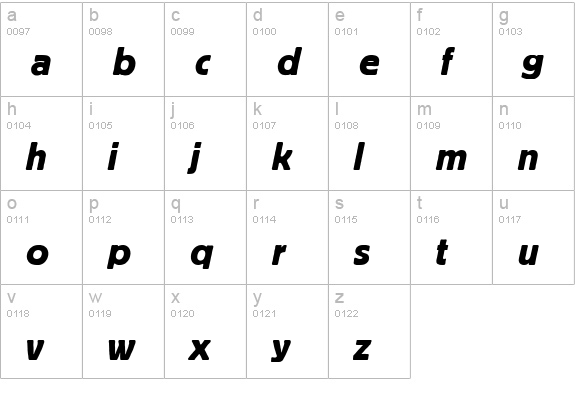
Block Berthold Italic Font Details
Block Berthold Italic is a distinctive, italic variant in the Block typeface family \xE2\x80\x94 well suited to design and typography projects.
Block Berthold Italic font is a modern and stylish typeface that exudes elegance and sophistication. Its sleek and streamlined design makes it perfect for a wide range of projects, from branding to editorial design. The italicized style adds a touch of flair and personality to any text, making it stand out and capture attention. What sets Block Berthold Italic font apart is its versatility and readability, making it suitable for both display purposes and body text. Whether you're designing a logo, creating a poster, or crafting a brochure, this font will elevate your work to the next level with its clean lines and distinctive curves. And the best part? Block Berthold Italic font is available for free download at FontsMarket.com. So you can access this premium font without having to worry about any costs. Don't miss out on the opportunity to enhance your designs with this elegant and stylish typeface. Download Block Berthold Italic font today and see the difference it can make in your projects.